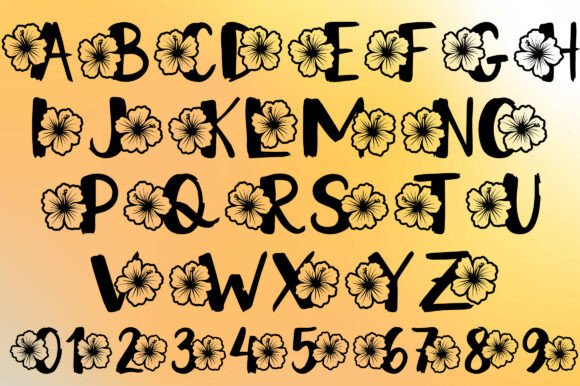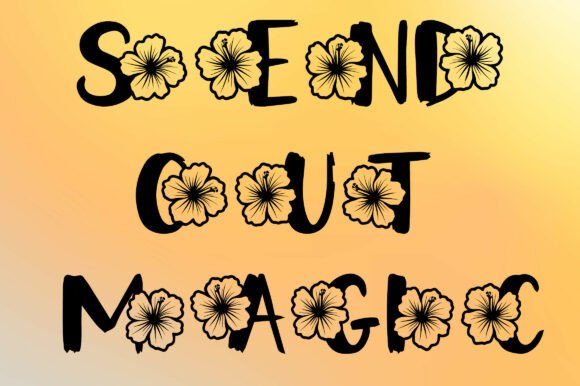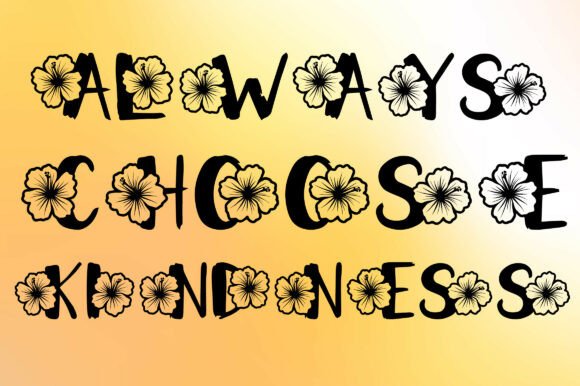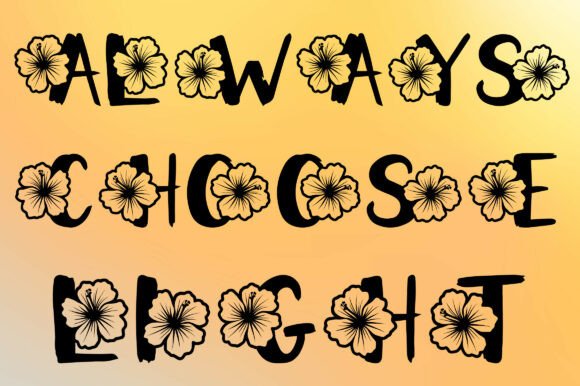
Introducing CHERR Decorative Hibiscus Flower Style Fonts: Elevate Your Designs with Tropical Elegance
Are you tired of using the same old fonts in your designs? Look no further! CHERR Decorative Hibiscus Flower Style Fonts is a stunning and artistic typeface that will add a touch of freshness and elegance to any project. Inspired by the natural beauty of hibiscus flowers and tropical floral designs, this font is perfect for designers and crafters looking to infuse their work with a playful and creative vibe.
The Inspiration Behind CHERR Font
The CHERR font is a beautiful representation of the vibrant and exotic world of tropical flowers. The hibiscus flower, with its delicate petals and intricate details, has been a source of inspiration for artists and designers for centuries. The CHERR font takes this inspiration and translates it into a unique and stylish typeface that is sure to capture the attention of your audience.
Key Features of CHERR Font
- Uppercase English letters A-Z and numbers 0-9: The CHERR font features a comprehensive set of uppercase English letters and numbers, making it perfect for a wide range of design applications.
- Decorative and artistic style: The font’s decorative style is inspired by the intricate details of hibiscus flowers, adding a touch of elegance and sophistication to any design.
- Vibrant and stylish: The CHERR font is designed to bring a pop of color and vibrancy to your designs, making it perfect for summer-themed projects, floral designs, and more.
The CHERR font is incredibly versatile and can be used in a wide range of design applications, including:
- Logos and branding: Add a touch of elegance and sophistication to your logo and branding with the CHERR font.
- Invitations and posters: Create eye-catching invitations and posters that will grab the attention of your audience.
- Packaging: Add a touch of whimsy and playfulness to your packaging with the CHERR font.
- Social media graphics: Create stunning social media graphics that will make your brand stand out.
- Summer-themed designs: Perfect for summer-themed designs, such as beachwear, accessories, and more.
Endless Opportunities for Creativity
The CHERR font offers endless opportunities for creativity and self-expression. With its unique and stylish design, you can:
- Experiment with different colors and textures: Try out different colors and textures to add depth and interest to your designs.
- Combine with other fonts: Combine the CHERR font with other fonts to create a unique and eye-catching design.
- Add your own twist: Add your own twist to the CHERR font by experimenting with different styles and effects.